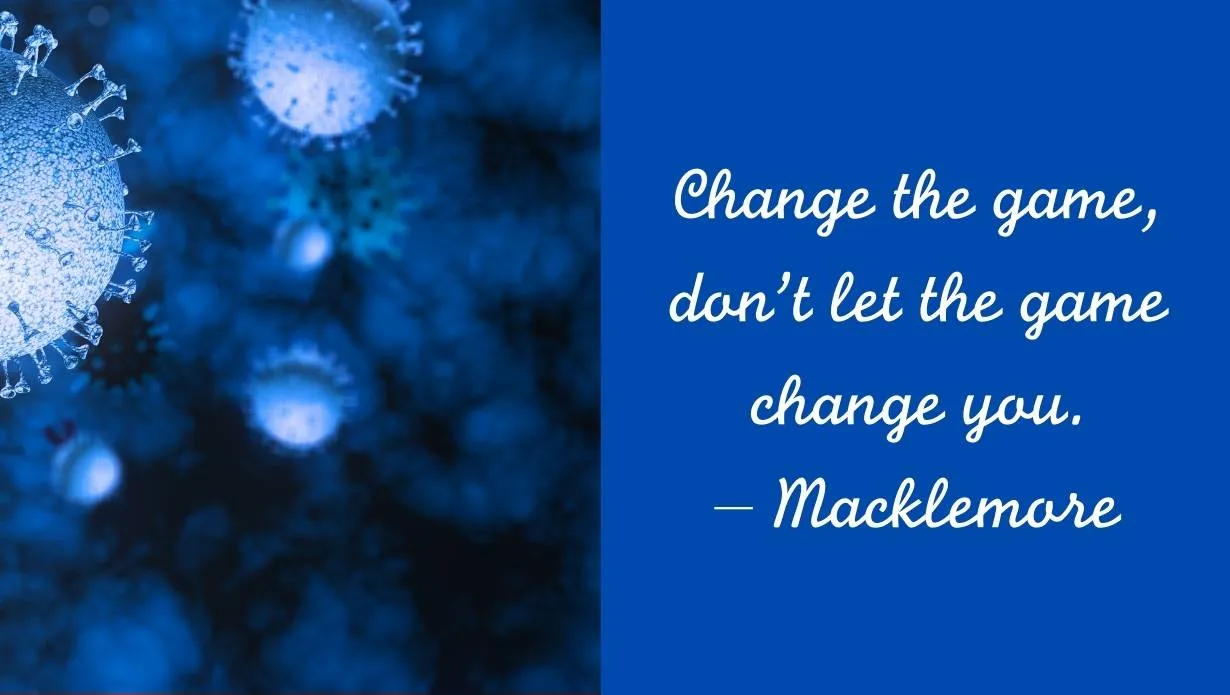
Here, we present a very amazing typeface that is known as Monoline Script Font, which was developed by an artist at the turn of the nineteenth century. This Font style is very popular right now and we will show you how to use it in your designs. This stylish typeface is specified by the CSS.
It is a typeface that has a consistent stroke width, with no thin or thick strokes. This type of font can be used for hand-lettering, This cute Font is perfect for creating headlines, logos, and other graphic designs.
Here, also given its similar that is Westchester Font. Some of its most famous and attractive characteristics are uppercase, lowercase, numbers, and punctuation.
Monoline Script Font Family